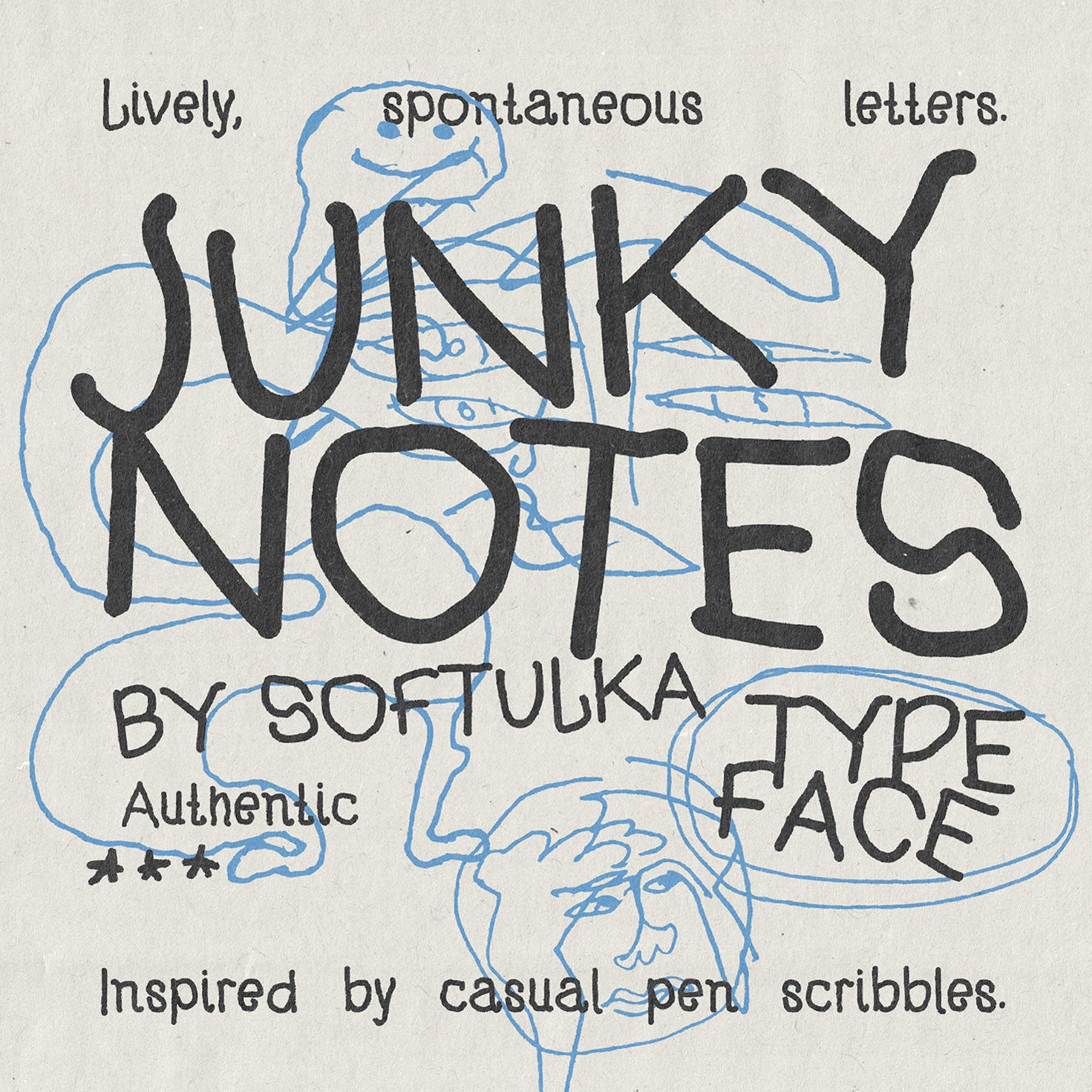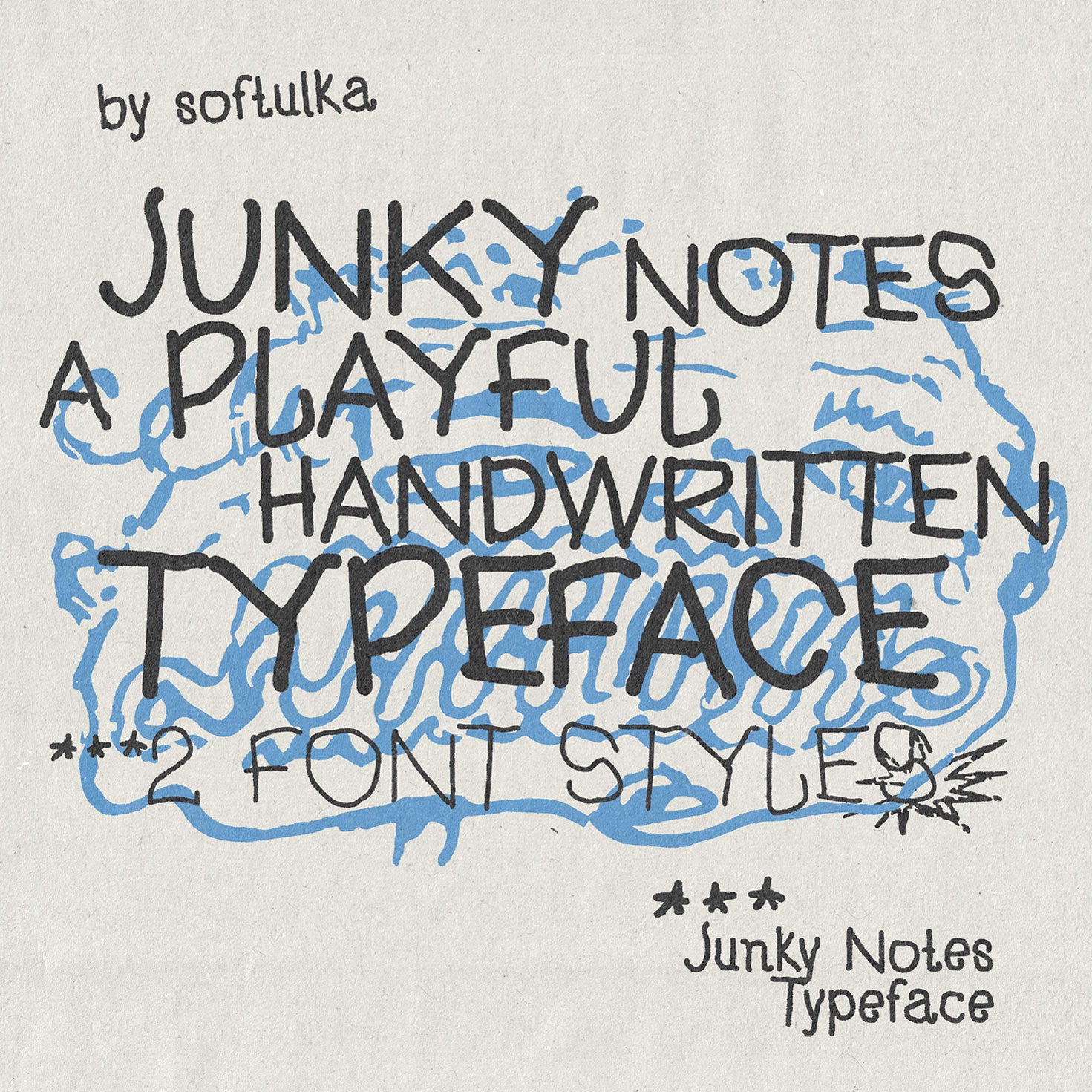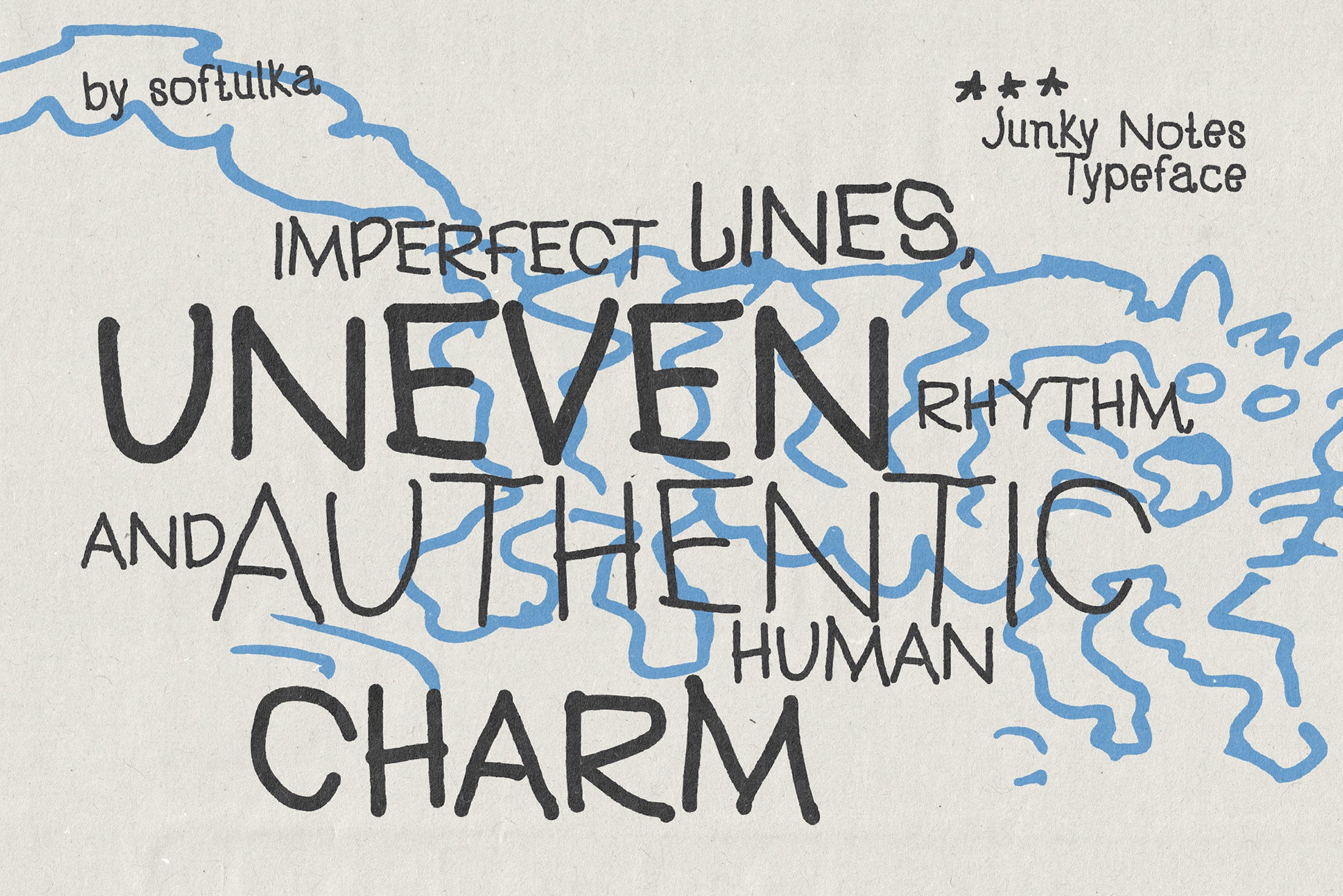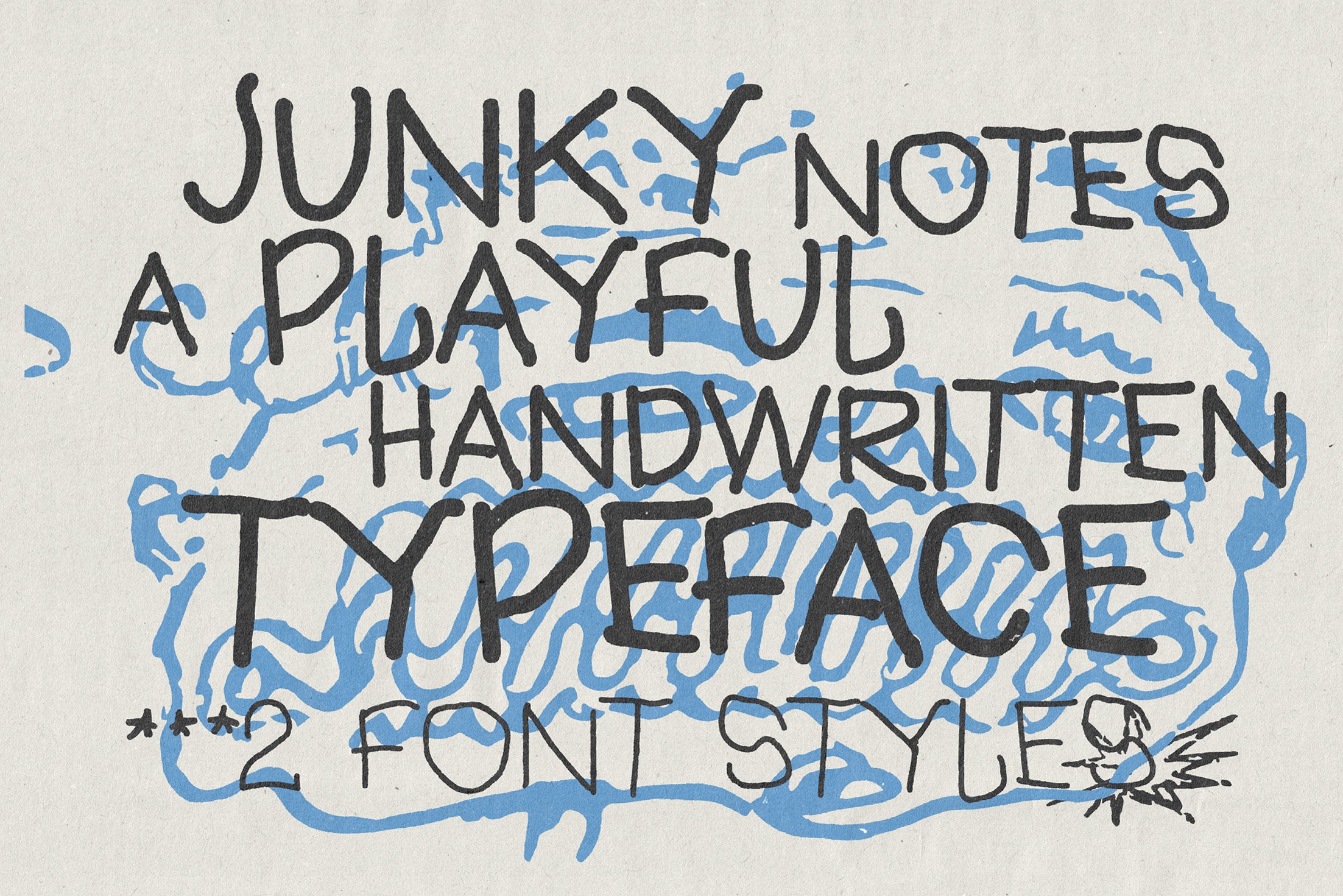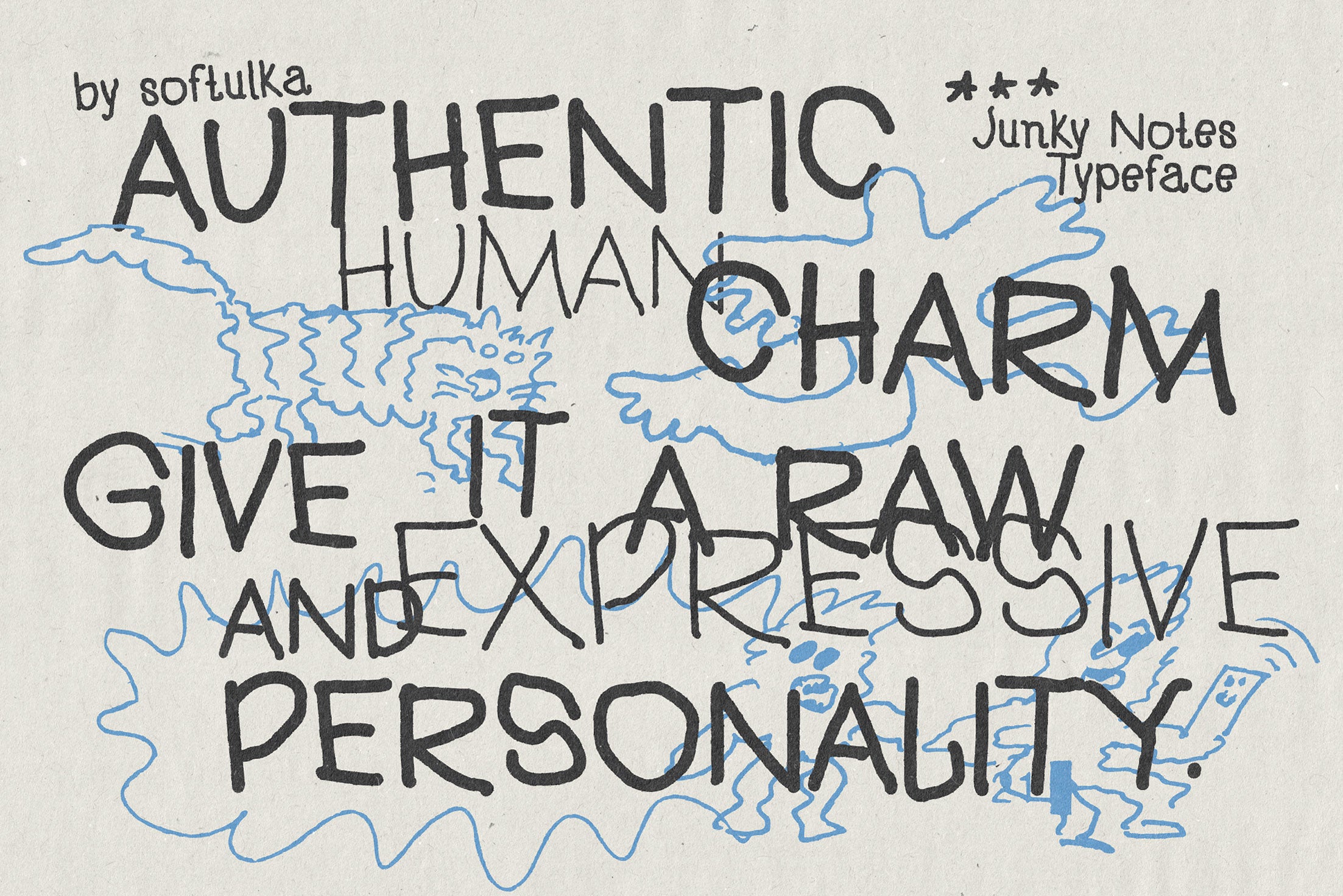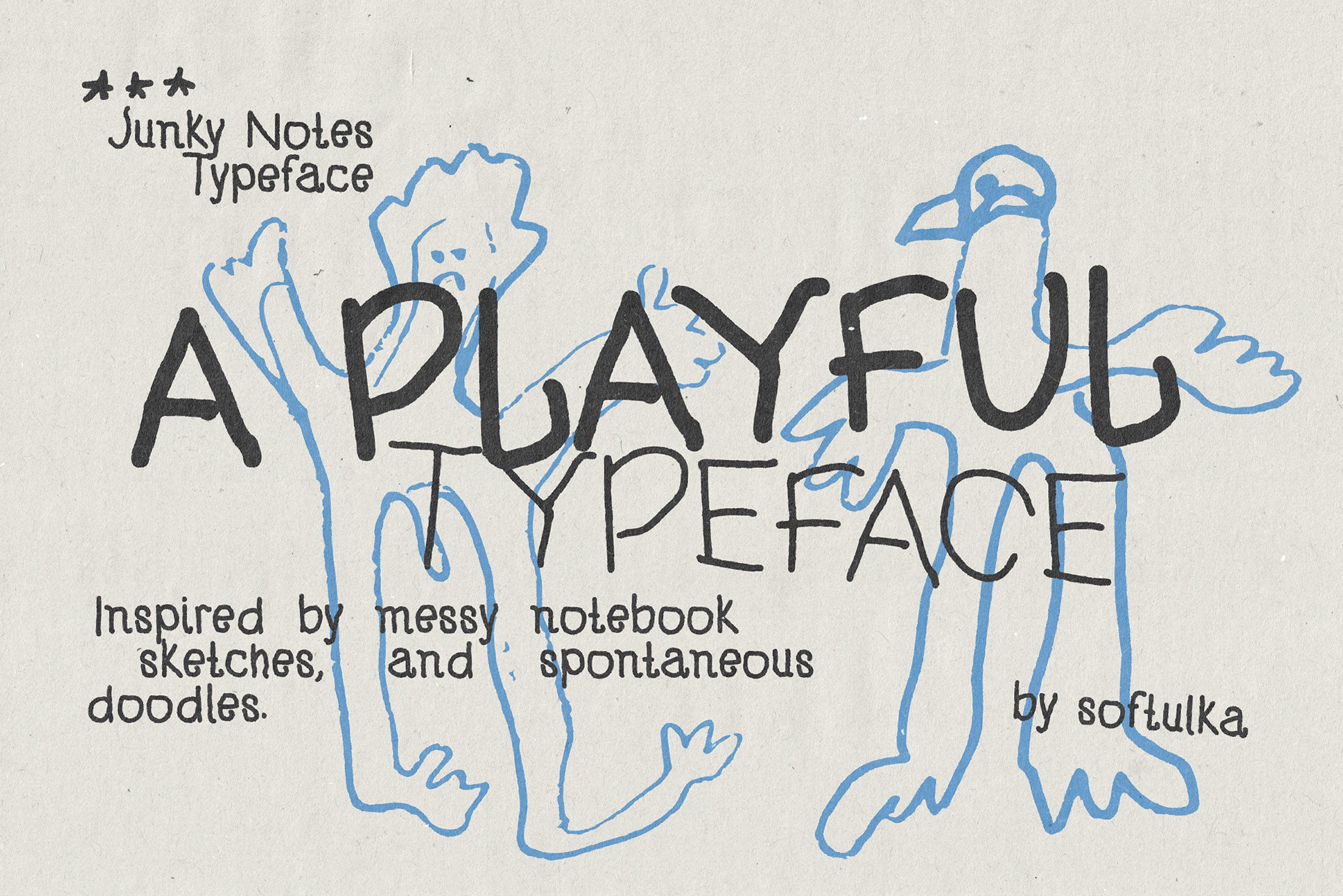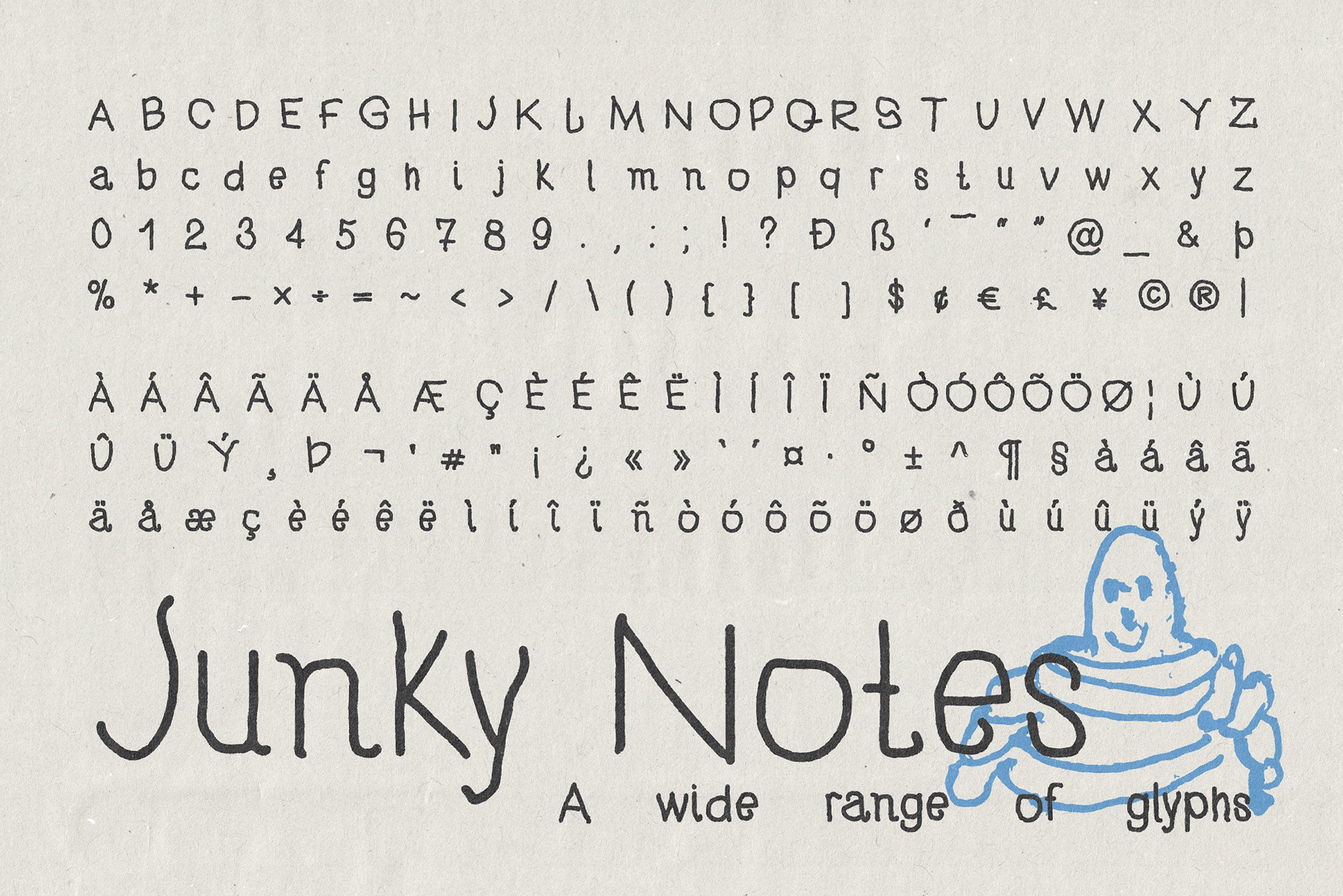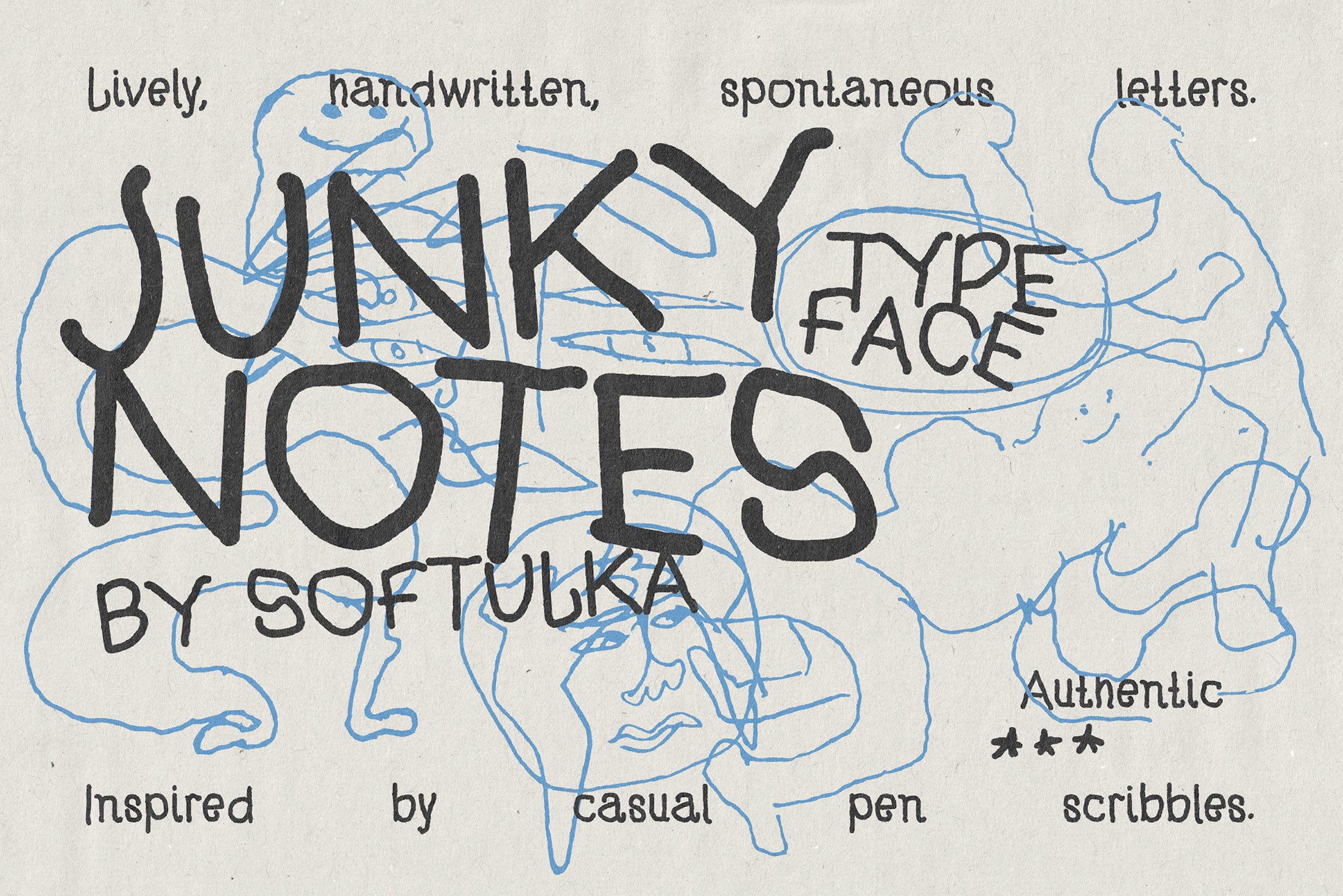
Junky Notes Typeface
Softulka
A playful handwritten typeface inspired by messy notebook sketches, spontaneous doodles, and casual pen scribbles. Imperfect lines, uneven rhythm, and authentic human charm give it a raw and expressive personality. Ideal for posters, branding, packaging, social media graphics, children’s projects, journals, and creative editorial layouts.
Junky Notes Typeface is a handwritten-style font featuring uneven lines and irregular spacing, based on notebook sketches and pen scribbles. The package includes 2 OTF files, 2 TTF files, 2 WOFF files, and a PDF preview.